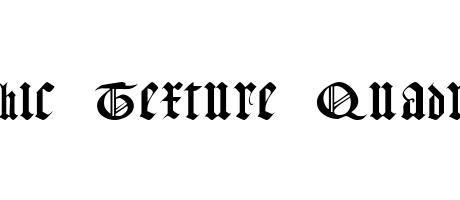
Gothic Texture Quadrata
Gothic Texture Quadrata: A bold, blackletter typeface, its strokes thick and angular, reminiscent of medieval manuscripts. The letters possess a textured quality, giving depth and a slightly rough, hand-carved feel. The serifs are sharp and pronounced, adding to the archaic and powerful presence of the font.